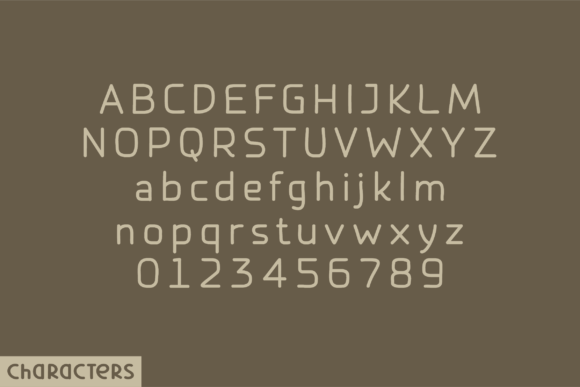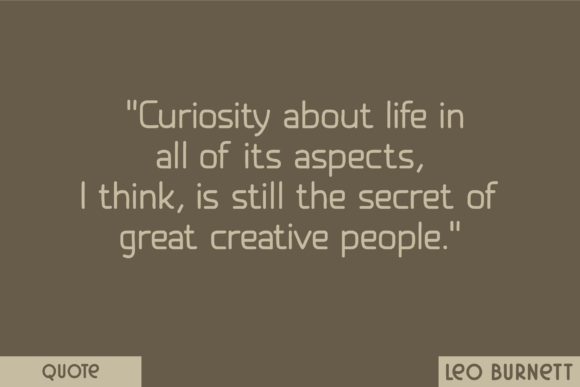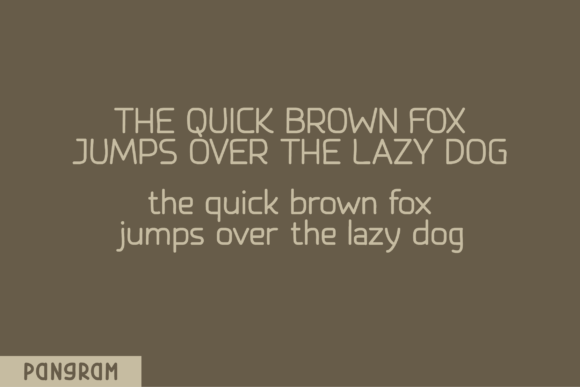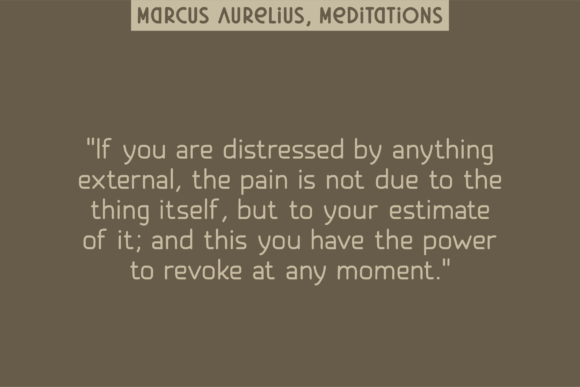
Introduction to Sangria Font
Have you ever been working on a creative project, pouring your heart and soul into it, and then suddenly, you’re stuck on the perfect font? You know, that one element that makes your design pop? For me, it was a social media post I was working on, and I just couldn’t find the right sans serif font to give it that extra oomph. That’s when I stumbled upon the Sangria Font.
As a designer, you know how valuable a high-quality font can be to your creative project. And that’s exactly what the Sangria Font offers – a clean, modern, and elegant sans serif font that’s perfect for book covers, magazines, invitations, and more. With its minimalist vibe, it’s no wonder why designers are going crazy for this font. Plus, it’s available for a free download, making it an amazing design resource to have in your toolkit.
Sangria Font
- Perfect for designers and artists looking for a unique and stylish design resource.
- Includes a range of characters, including uppercase and lowercase letters, numbers, and special characters.
Honest Review: Sangria Font
I recently stumbled upon the Sangria Font and I must say, it’s a great addition to any design project. As a designer, I’m always on the lookout for high-quality fonts that can elevate my work.
Here are some things that work well for the Sangria Font:
- ✨ The font has a unique, elegant design that’s perfect for creative projects that require a touch of sophistication.
- ✨ The font comes with a transparent background, making it easy to customize and integrate into any design.
- ⚠️ The font may not be suitable for projects that require a bold, attention-grabbing font.
- ⚠️ Some users may find the font to be a bit too elegant, making it difficult to read in certain contexts.
Overall, I’m impressed with the Sangria Font and I would definitely recommend it to designers who are looking for a high-quality, elegant font for their creative projects.
Sangria Font is perfect for creative projects, such as wedding invitations, party decorations, and social media graphics. It’s also great for business presentations, marketing materials, and websites. With its high-quality design and transparent background, Sangria Font is a versatile design resource that can be used in a variety of contexts.